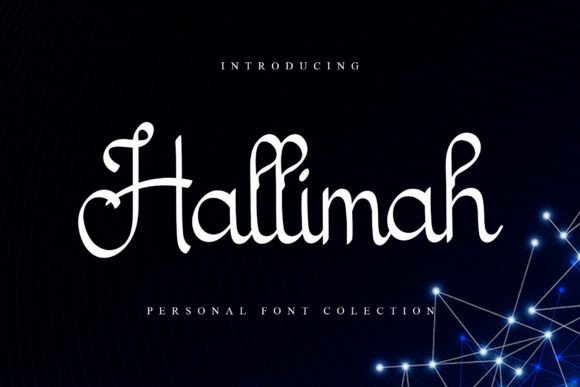
Step into the world of Hallimah Font, a graceful script font born to enhance your creative endeavors. This exquisite font, brought to life by the talented giartstudios, captivates with its captivating curves and fluid strokes, making it the perfect choice for infusing elegance and charm into your designs.
With Hallimah Font, you'll discover a font family that's as versatile as it is beautiful. Whether you're crafting heartfelt wedding invitations, designing eye-catching social media posts, or creating memorable logos, Hallimah Font will effortlessly elevate your projects to new heights of sophistication.
Immerse yourself in the world of Hallimah Font and let its enchanting characters dance across your designs, weaving tales of love, joy, and heartfelt moments. Experience the transformative power of this font as it effortlessly transforms your words into works of art, leaving an indelible mark on your audience.
With Hallimah Font, you'll embark on a creative journey where your imagination knows no bounds. Its meticulously crafted glyphs and extensive character set open up a realm of endless possibilities, allowing you to express your individuality with flair and finesse.
Don't settle for ordinary fonts that blend into the background. Embrace the exceptional with Hallimah Font. Let its charm captivate your audience, evoke emotions, and create lasting connections. Discover the art of typography and elevate your designs to new heights of beauty and sophistication.